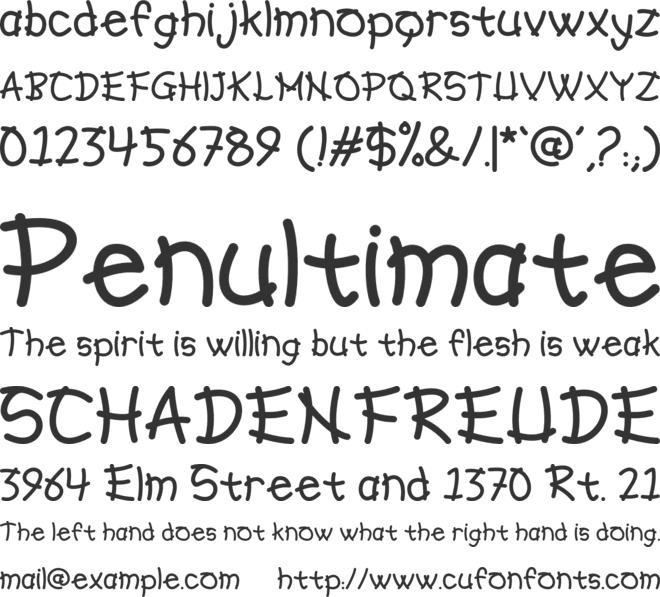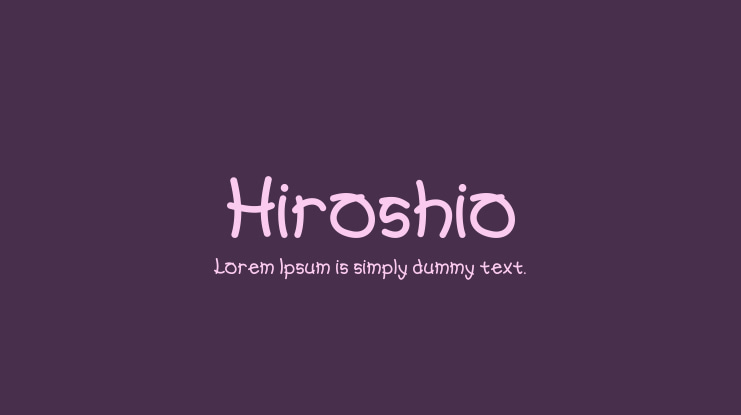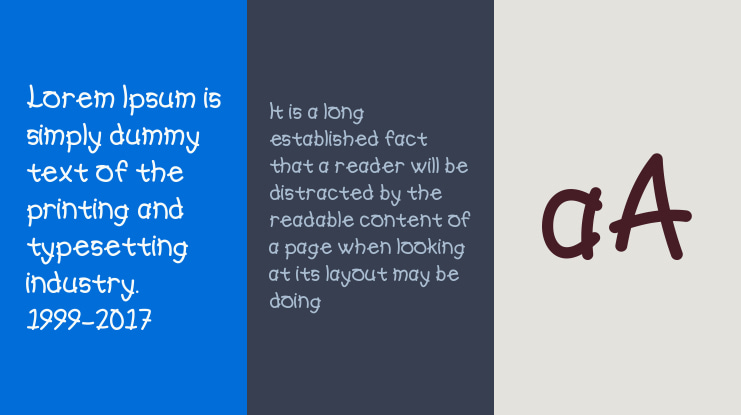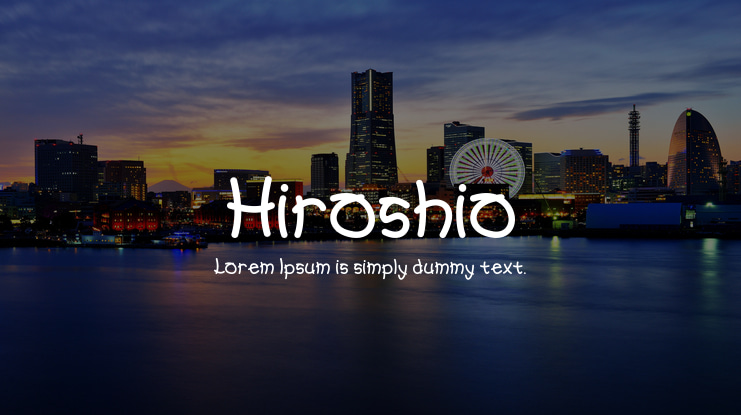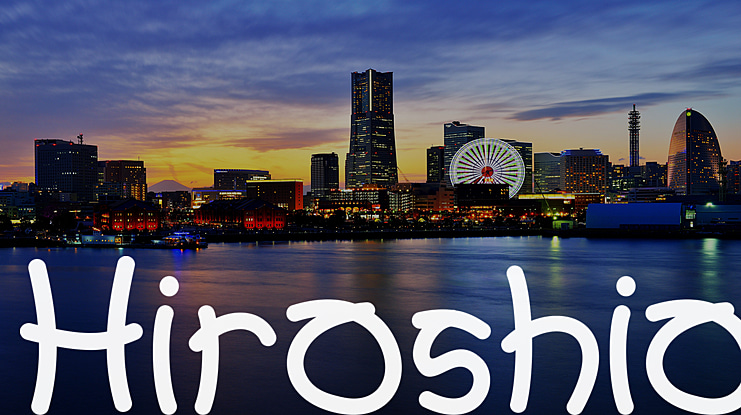
Hiroshio Font
Hiroshio is my original from with Japan or Chinesse Look. I hope this font will be download by people around the world. I am very happy, if people downloder give me a donate for author. Thanks a lot